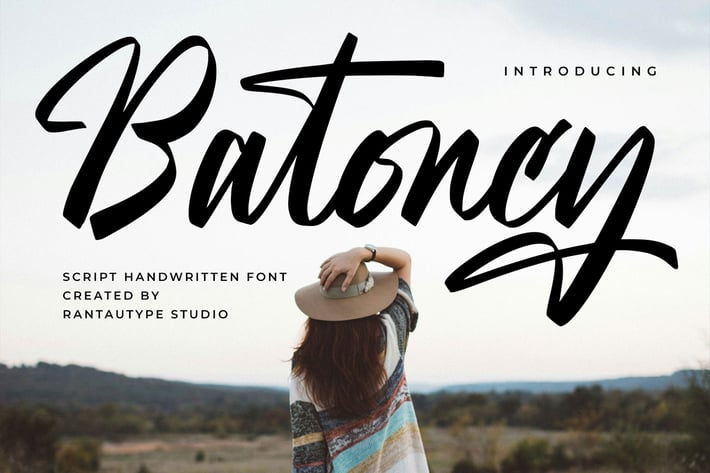
Batoncy Script Handwritten Font
Batoncy is a new handwritten script font with authentic style. Batoncy bring curve shape blend casual trendy sign make it modern look.
Batoncy is a perfect choice for any creative endeavor, lifestyle design such as logos, title, watermark on photography, cover, branding, display and magazine, wedding event, corporate brand, quotes, album cover, business card, business project, company branding and more project with handwritten taste.
Standar character A-Z and a-z
Ligature and alternate